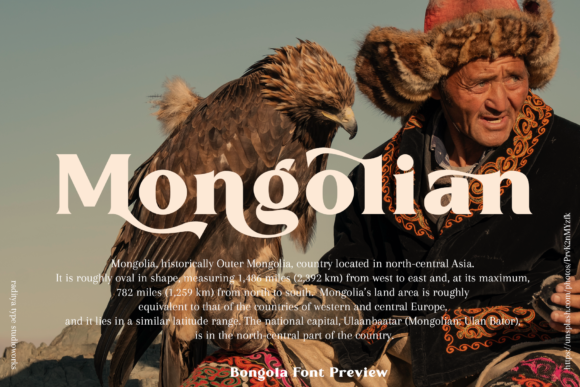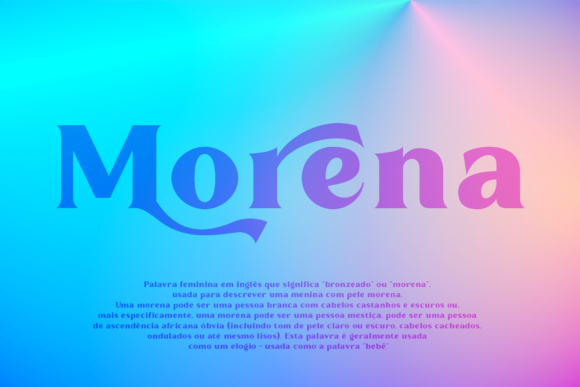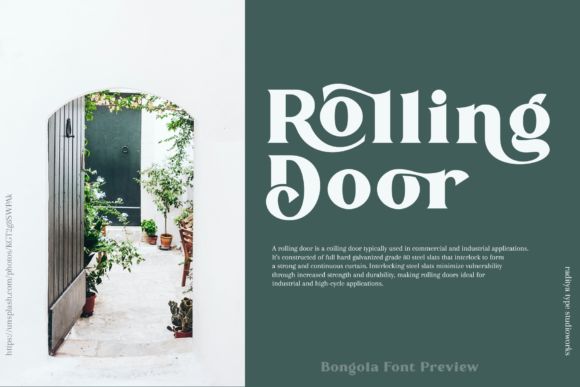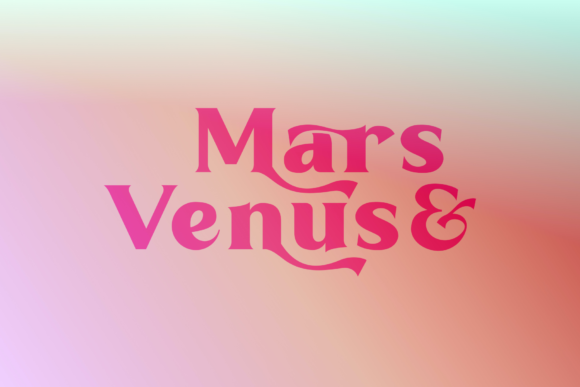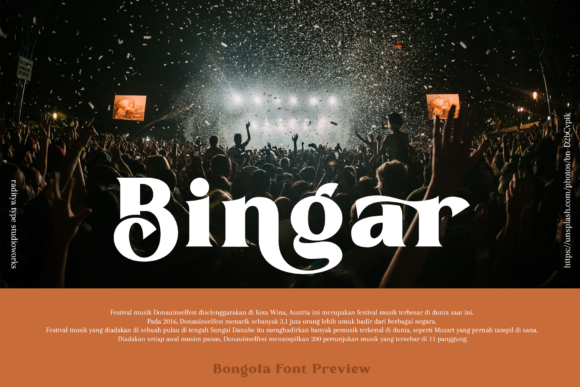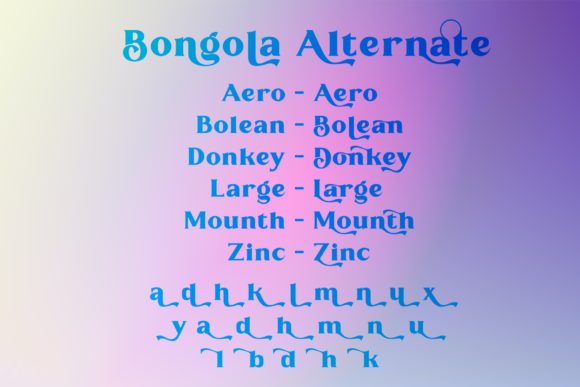
Bongola Font: Elevate Your Designs with Versatility and Style
In the world of typography, a font can make or break a design. For designers and crafters looking for a versatile and stylish serif display font, Bongola is an excellent choice. This comprehensive article will dive into the features, uses, and benefits of the Bongola font, perfect for branding projects, logo designs, apparel branding, product packaging, magazine headers, or as a stylish text overlay to any background image.
What is Bongola Font?
Bongola is a carefully crafted serif display font designed to work seamlessly in both large and small sizes. Its unique blend of classic and modern elements makes it an excellent addition to any design project. The font’s versatility allows it to adapt to various design needs, from bold statements to subtle text overlays.
Key Features of Bongola Font
- Versatile serif display font: Bongola’s serif design ensures a touch of elegance and sophistication, while its display font characteristics make it perfect for headlines and titles.
- Works in large and small sizes: Whether you need a bold statement or a subtle text overlay, Bongola performs exceptionally well in various sizes.
- Perfect for branding projects: Establish a strong brand identity with Bongola’s unique and memorable style.
- Ideal for logo designs: Create a lasting impression with Bongola’s distinctive serif design.
- Suitable for apparel branding: Add a touch of style and sophistication to your apparel designs with Bongola.
- Great for product packaging: Make your product stand out with Bongola’s elegant and eye-catching font.
- Magazine headers and stylish text overlays: Use Bongola to create visually appealing magazine headers or add a touch of style to your background images.
Benefits of Using Bongola Font
So, why choose Bongola font for your design projects? Here are some benefits:
- Unique style: Bongola’s distinctive serif design sets it apart from other fonts, ensuring your designs stand out.
- Flexibility: Use Bongola in various design projects, from branding and logo designs to apparel branding and product packaging.
- Elegance and sophistication: Add a touch of elegance and sophistication to your designs with Bongola’s classic and modern elements.
- Easy to read: Despite its unique design, Bongola remains easy to read, making it perfect for both large and small sizes.
Tips for Using Bongola Font Effectively
To get the most out of Bongola font, consider the following tips:
- Experiment with sizes: Bongola works well in both large and small sizes, so don’t be afraid to experiment and find the perfect fit for your design.
- Pair with complementary fonts: Combine Bongola with complementary fonts to create visually appealing and harmonious designs.
- Use for headlines and titles: Take advantage of Bongola’s display font characteristics and use it for headlines and titles to create a lasting impression.
- Add a touch of style: Use Bongola as a stylish text overlay to add a touch of elegance and sophistication to your background images.
In conclusion, Bongola font is a versatile and stylish serif display font perfect for designers and crafters looking to elevate their designs. With its unique blend of classic and modern elements, Bongola is suitable for various design projects, from branding and logo designs to apparel branding and product packaging. By understanding the features, benefits, and tips for using Bongola font effectively, you can unlock its full potential and take your designs to the next level.